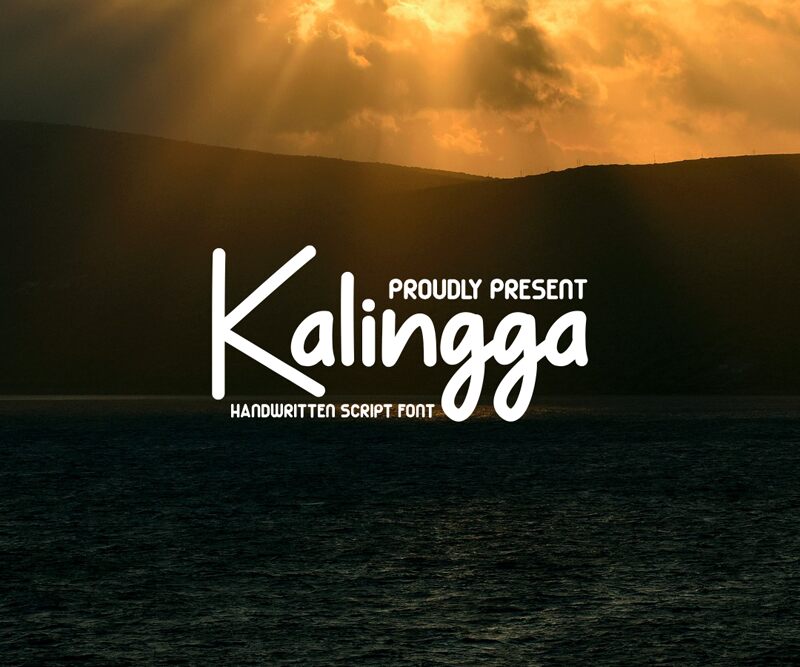
Kalingga is a charming semi-light handwritten font from Almaz Studio. This delightful typeface is brimming with personality and is perfect for adding a touch of whimsy to your projects. Kalingga's playful curves and fluid strokes make it a great choice for anything from children's book covers to greeting cards and social media graphics. Its semi-light weight lends itself well to body text, while its unique style makes it stand out as headlines or titles. Whether you're designing for print or web, Kalingga will add a touch of hand-crafted charm to your project.